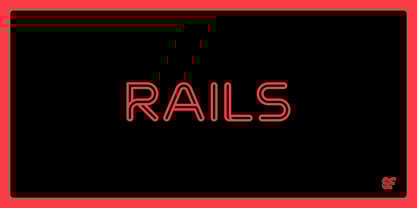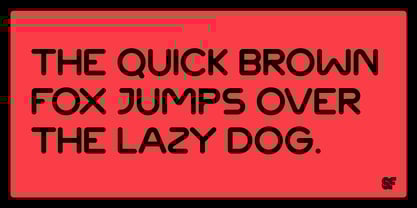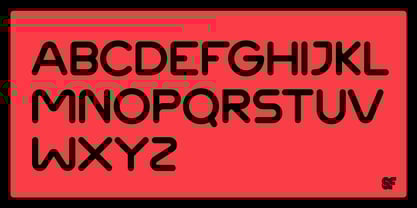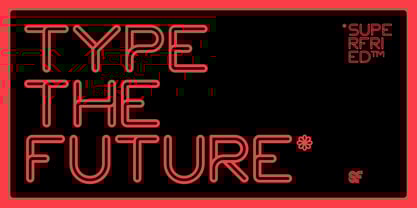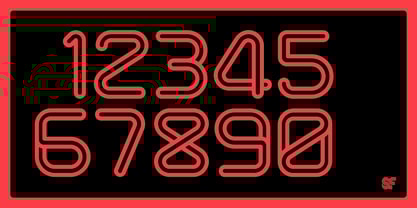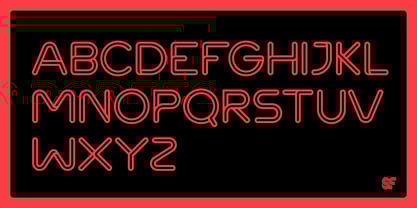
Rails
por Superfried
La familia tipográfica Rails fue diseñada por Mark Richardson y publicada por Superfried. Rails contiene 4 estilos y opciones de paquete familiar.
NEW – Remastered for 2025! Originally designed in 2014 by Superfried, Rails is an innovative inline display typeface that stands out in any design project. Available in four distinct styles: display, display solid, broken, and broken solid, this typeface is characterized by its unique construction of parallel tracks. The broken styles introduce striking breaks that enhance visual impact, creating a dynamic contrast. The combination of these styles results in a clean, flowing typography with unexpected moments of disruption, making it perfect for branding, editorial design, and web applications. The 2025 remaster includes refined character designs and improved spacing, ensuring a polished and modern aesthetic that elevates your creative projects. Rails includes 266 glyphs and has been featured in Computer Arts magazine.